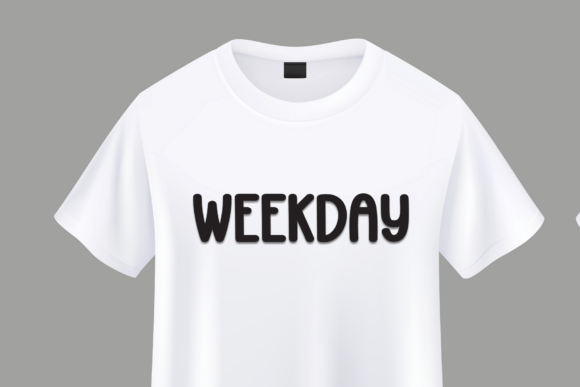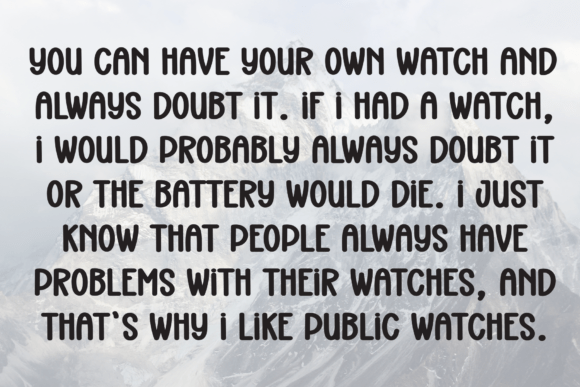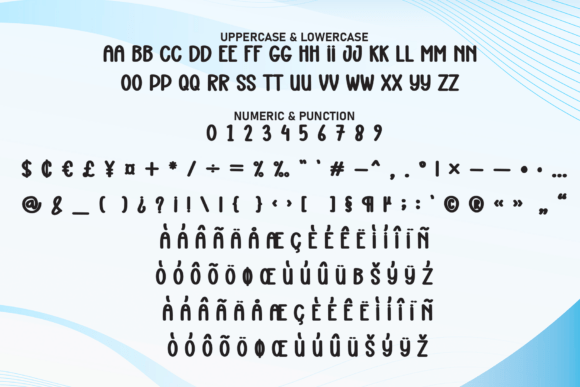
Introduction to Magic Alphabet Font
As designers, we’ve all been there – staring at a blank canvas, trying to bring a creative project to life. The right font can make all the difference, setting the tone for a fun and engaging design. For kids’ projects, educational content, and playful branding, there’s one font that stands out from the rest: the Magic Alphabet Font.
With its smooth curves and cheerful vibe, the Magic Alphabet Font adds a warm and approachable touch to your designs while maintaining a clean and legible structure. Whether you’re creating a children’s book, a website for a family business, or a social media campaign, this font is sure to bring a smile to your audience’s faces.
Key Features of Magic Alphabet Font
- High-quality, hand-drawn design resource ideal for creative projects, such as illustrations and graphics.
- Includes 26 uppercase and 26 lowercase letters, as well as numbers and punctuation marks, making it a comprehensive font set.
- Designed with a unique, whimsical style that adds a touch of magic to any creative project.
Honest Review: Magic Alphabet Font
As a designer, I’m always on the lookout for unique and high-quality design resources to enhance my creative projects. The Magic Alphabet Font caught my attention with its whimsical and enchanting design. Here’s my honest review of this font.
- High-quality design: The Magic Alphabet Font boasts intricate details and a delicate touch that makes it perfect for adding a touch of magic to your design.
- Restricted usage: The Magic Alphabet Font seems to be designed for decorative purposes only, which might limit its usage in more serious design projects.
- Lack of customization options: The font’s design is fixed, which might not be suitable for designers who require more control over their typography.
Overall, the Magic Alphabet Font is a lovely addition to any designer’s toolkit. Its unique design and transparent background make it perfect for creative projects where a touch of magic is required. While it may have some limitations, I believe it’s a valuable resource for designers who want to add a bit of whimsy to their work.
The Magic Alphabet Font is ideal for use in creative projects such as invitations, posters, and presentations. It’s also a great design resource for bloggers and social media influencers looking to add a touch of magic to their content. With its transparent background and high-quality design, the Magic Alphabet Font is sure to elevate any creative project.